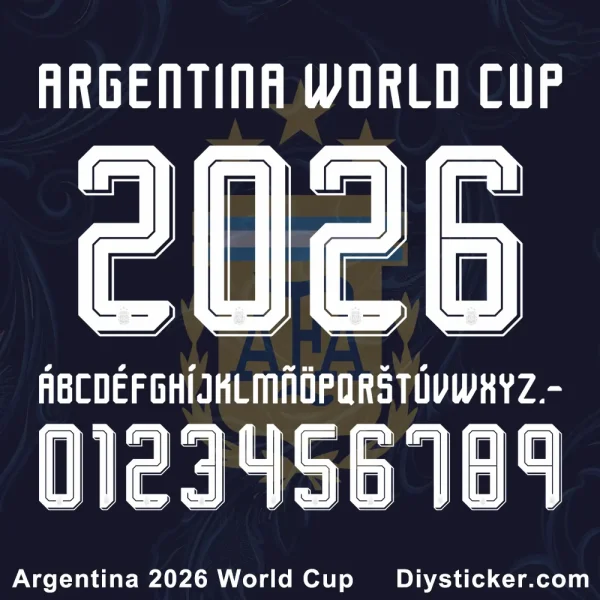
Argentina 2026 World Cup Away Font Download
Get the champion’s look with the Argentina 2026 World Cup Away Font. Specifically designed for the dark-themed away kit, this font features a sophisticated 3-line 3D inline effect. The download includes installable desktop formats (TTF, OTF) and professional-grade scalable vectors (AI, CDR, PDF). Ideal for DIY jersey printing, vinyl cutting, and sports graphic design.
The Champion’s Legacy: Argentina 2026 World Cup Away Typography
As the World Champions prepare to defend their title, own the typography that defines the era. Our Argentina 2026 World Cup Away Font is a precision-engineered recreation of the typeface used on the 2026 away kits. This font captures the perfect balance of modern sports aesthetics and retro 3D depth, featuring a unique “triple-line” interior detail.
Includes the full alphabet with Spanish accents (Á, É, Í, Ó, Ú, Ñ) and the official number set featuring the AFA (Argentine Football Association) crest detail at the base.